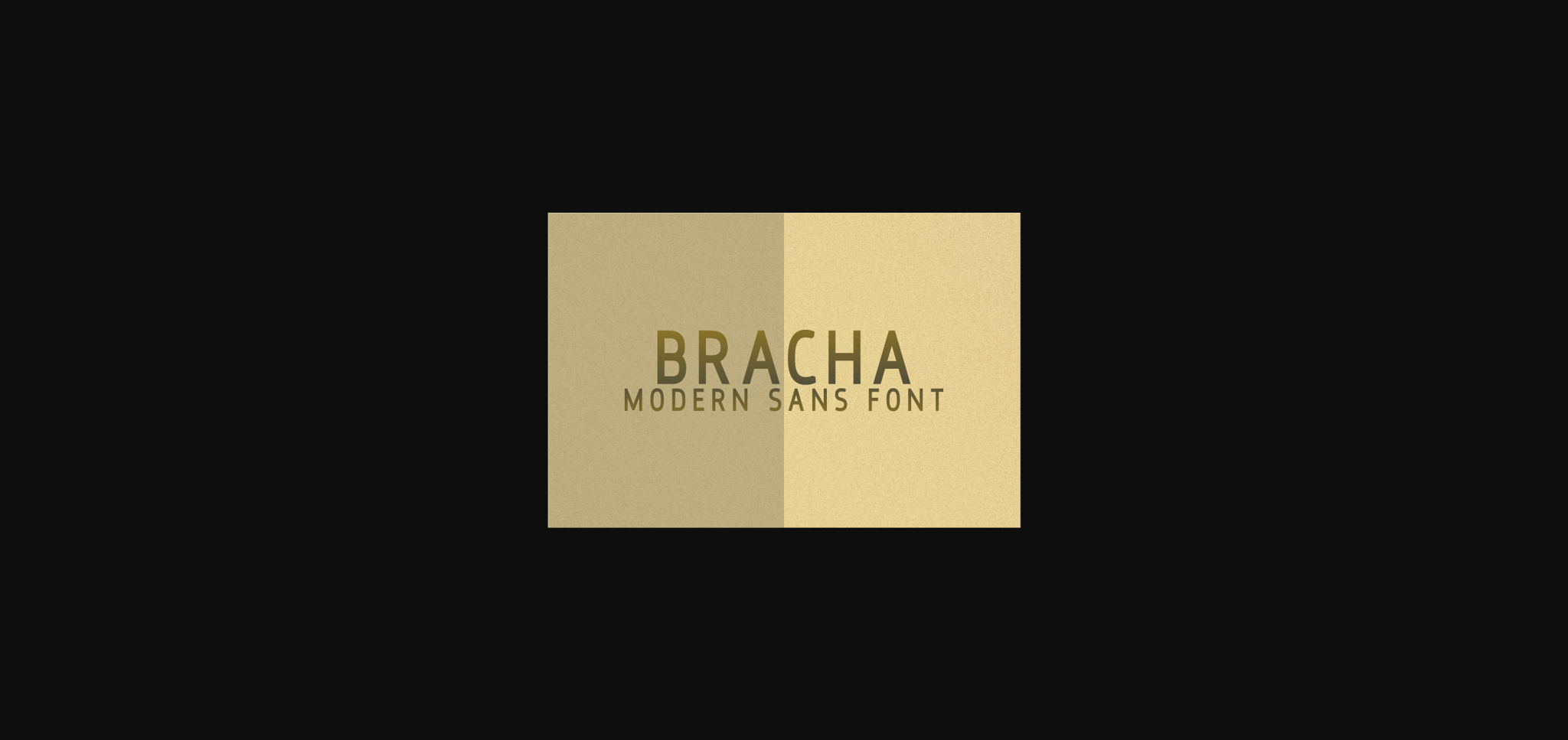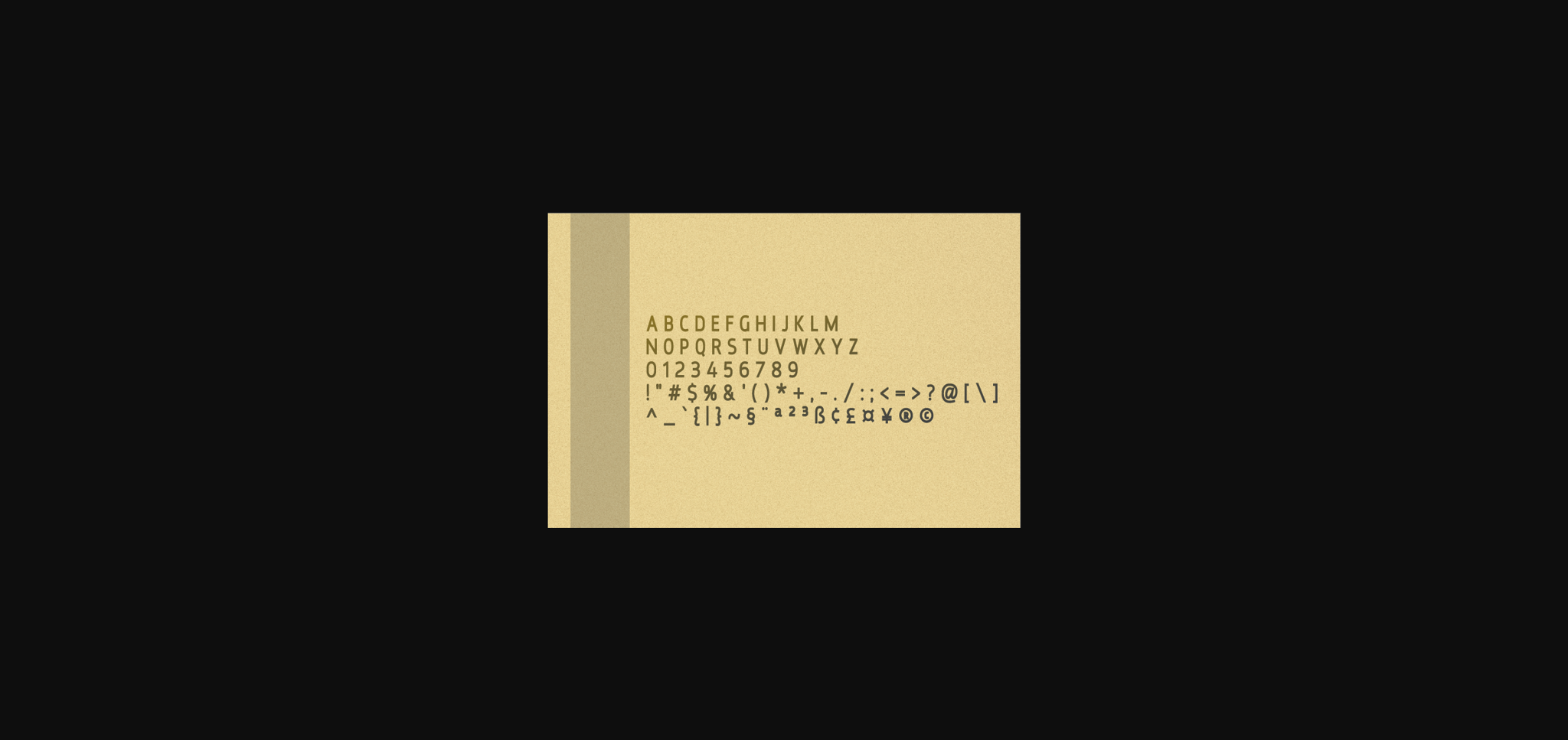
Bracha is a distinct, elegant sans serif font that blends traditional influences into a contemporary aesthetic. Use Bracha to achieve an exquisite, yet subtle look and maximum versatility.